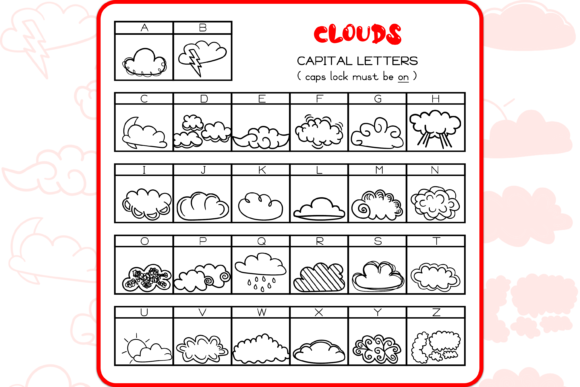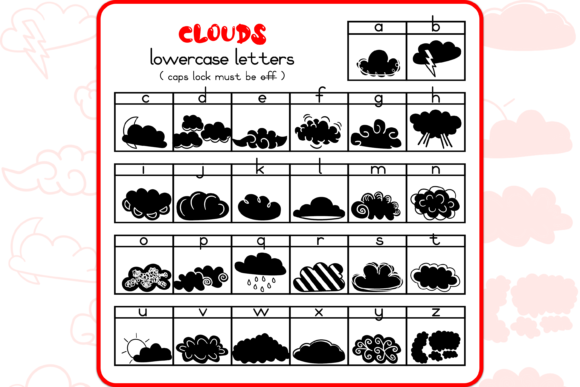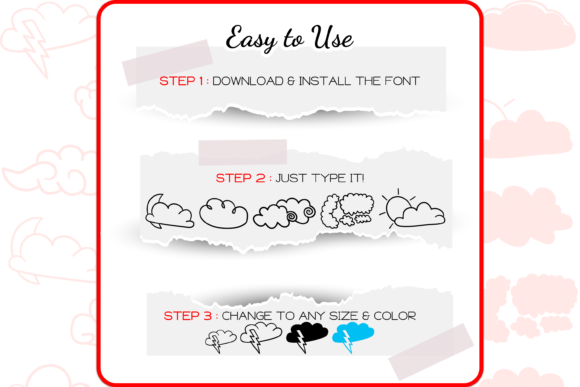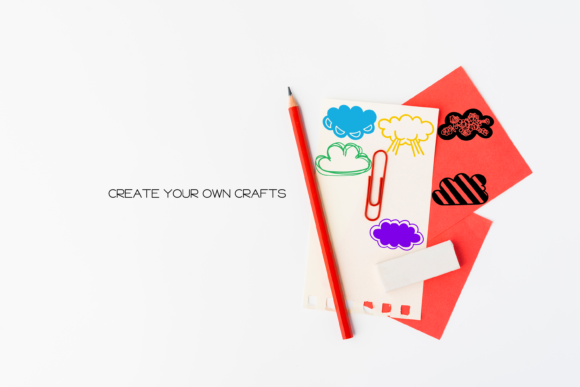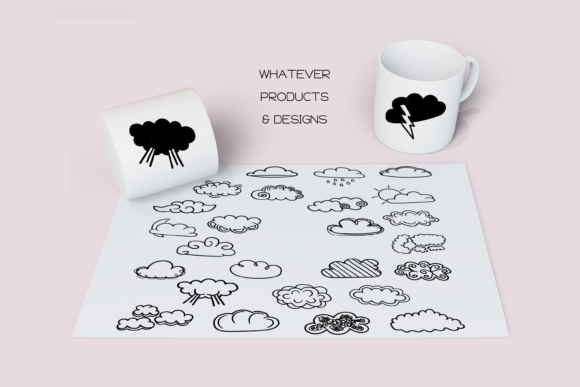
About Clouds Dingbats Font
Absolutely! “Clouds” is a delightful set of dingbats font that can add a touch of whimsy and dreaminess to your designs. With its collection of hand-drawn cloud doodles, this font offers versatile options for incorporating a soft and airy element into your projects. Here are some ways you can utilize the “Clouds” font:
1. Borders and Dividers: Use the cloud doodles as decorative borders or dividers to create a sense of lightness and playfulness in your designs. These fluffy clouds can add a whimsical touch and evoke a dreamy atmosphere.
2. Frames: Incorporate the cloud doodles as frames around images or text to create a soft and charming presentation. The clouds can give a sense of calm and tranquility, making your designs visually appealing and inviting.
3. Background Elements: Create dreamy backgrounds or patterns using the cloud doodles to add a touch of whimsy to your designs. Whether you’re designing stationery, greeting cards, or digital artworks, incorporating clouds can evoke a sense of serenity and enchantment.
4. Emphasize Text: Use the cloud doodles to highlight important text or headings. Placing a cloud next to key phrases or titles can draw attention and create a sense of lightness and positivity in your design.
5. Weather-related Designs: Since clouds are often associated with weather, you can use the cloud doodles to enhance weather-related designs. Whether you’re designing weather forecast graphics, outdoor event posters, or nature-themed projects, these cloud doodles can add a charming and whimsical touch.
6. Children’s Designs: The playful and fluffy nature of the cloud doodles makes them perfect for children’s designs. Use them in children’s books, educational materials, or nursery decorations to create a soft and imaginative atmosphere.
7. Branding and Packaging: Incorporate the cloud doodles in branding and packaging designs to create a fresh and dreamy visual identity. Whether you’re designing for a spa, a children’s product, or any other brand that aligns with a soft and serene aesthetic, the cloud doodles can help create a unique and memorable brand image.
Remember to experiment with different sizes, orientations, and colors of the cloud doodles to create unique and outstanding designs. The hand-drawn style of “Clouds” adds a personal and whimsical touch to your creations, giving them a dreamy and artistic vibe.
In summary, “Clouds” is a delightful set of dingbats font that can add a touch of whimsy and dreaminess to your designs. Whether you’re using the cloud doodles as borders, dividers, frames, or incorporating them in other creative ways, they are sure to make your designs stand out. Enjoy the versatility and dreamy atmosphere of “Clouds” and let your creativity soar with its hand-drawn cloud doodles!